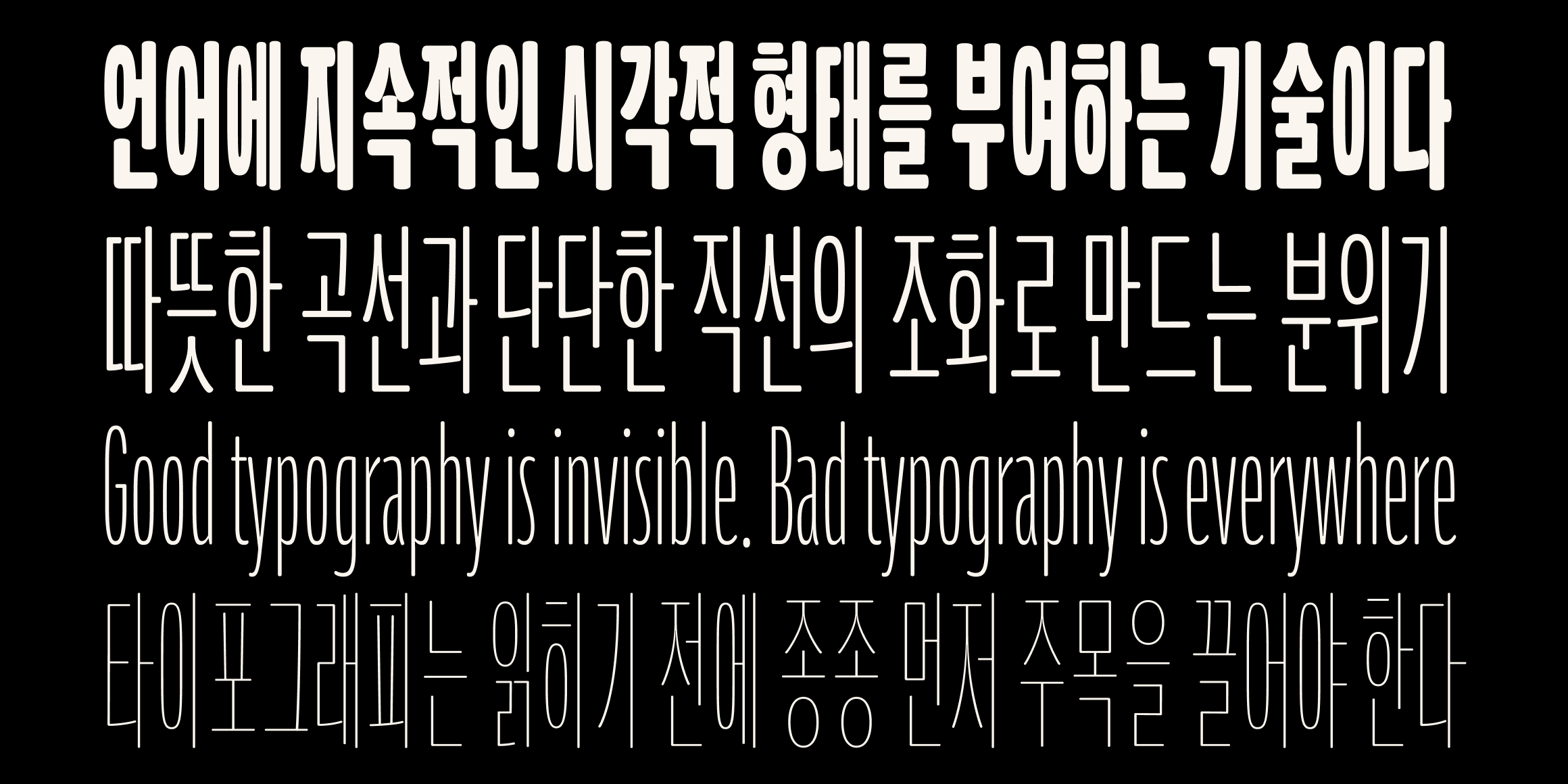
210 Busjeonglyujang
This font is designed with the concept of a chiseled feel by using straight lines and bending the strokes.
By connecting the middle and final consonants for each series, it gives a diverse and unique feel.
When typesetting, a lively sensibility was expressed through rhythmic lines.
- 210 버스정류장 / 210 Busjeonglyujang